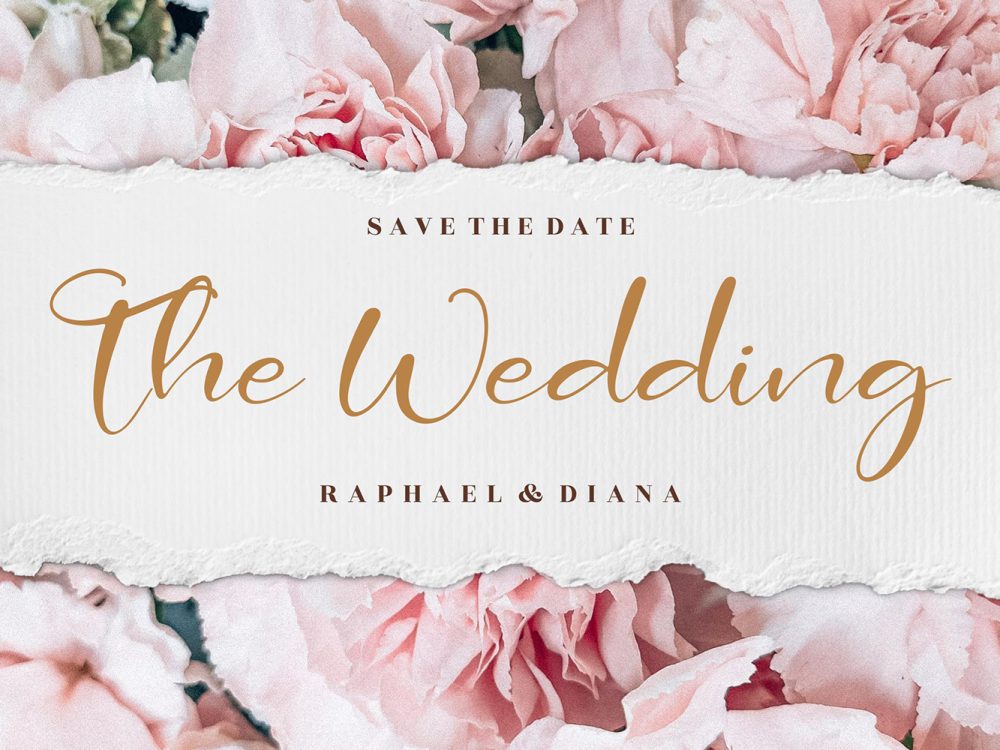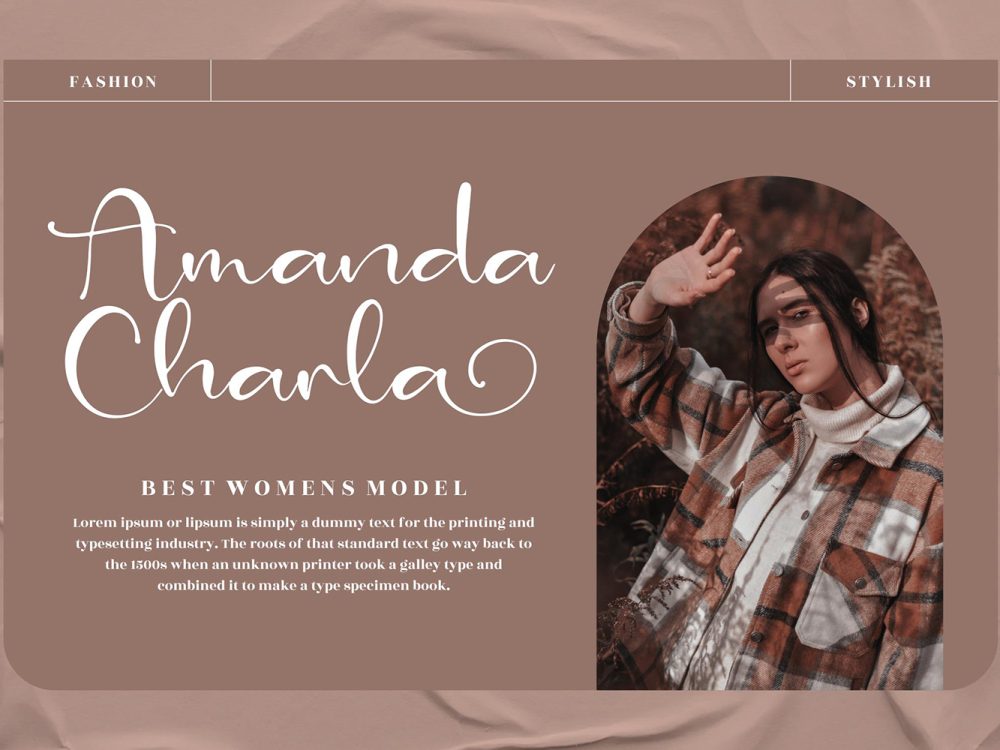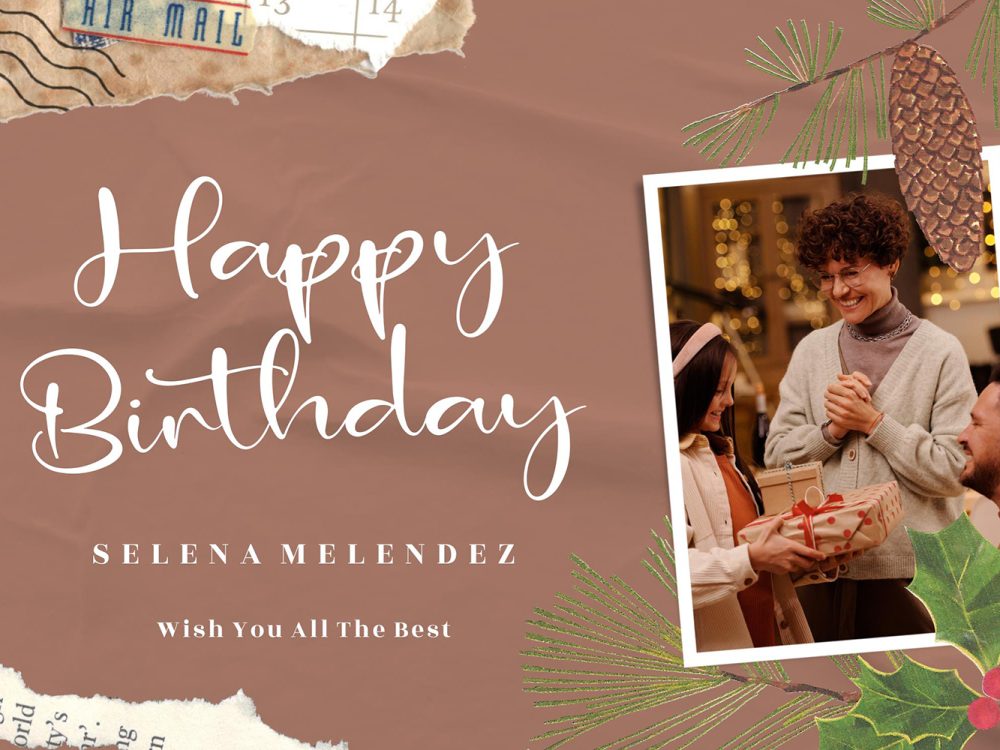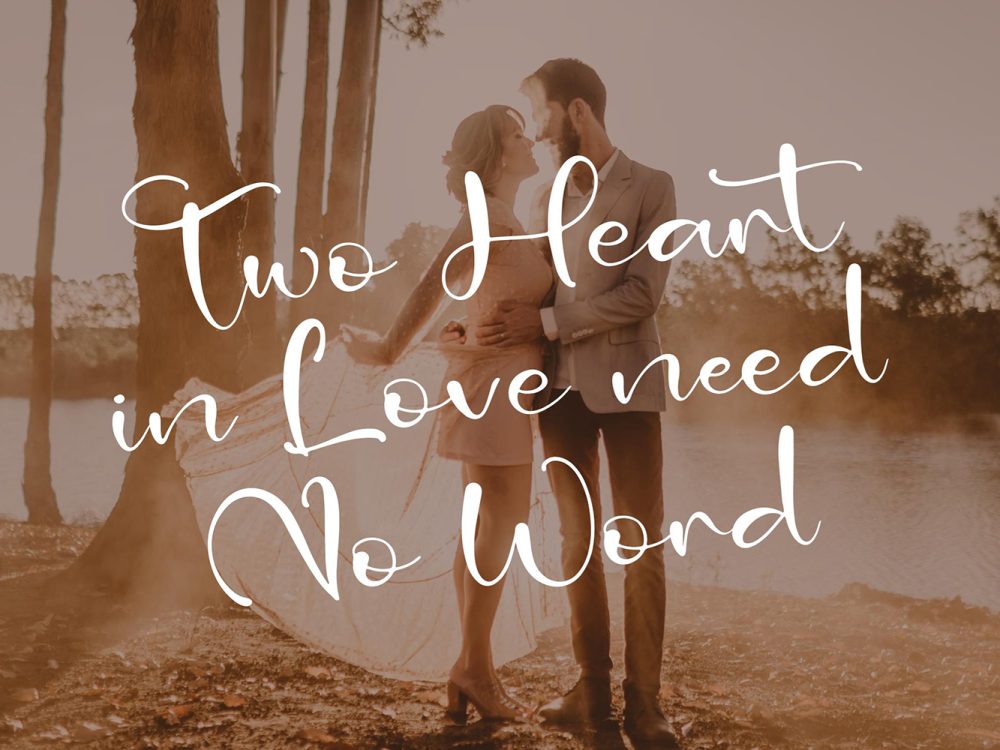
Kaillan Cantika Free Font is an exquisite and airy handwritten font imbued with a distinct charm and striking allure. Elevate your design projects with a touch of luxury by incorporating this font into your creative endeavors. If you like it don’t forget to check out the full version.